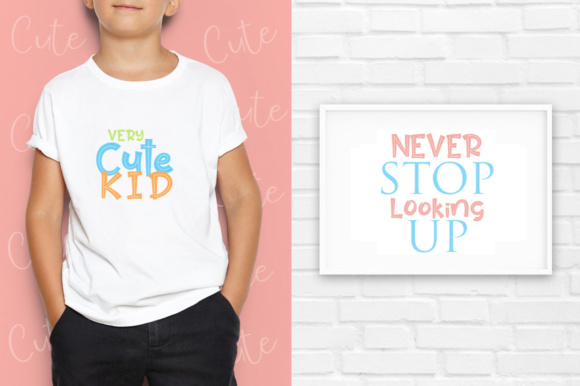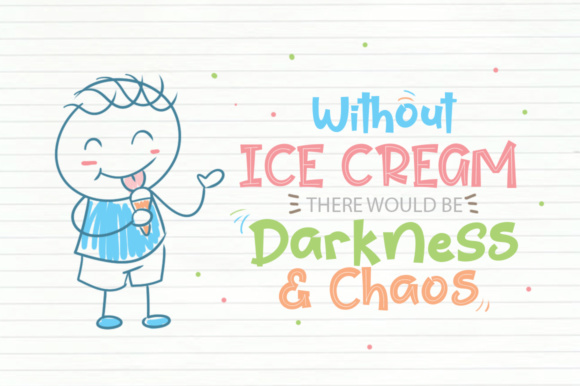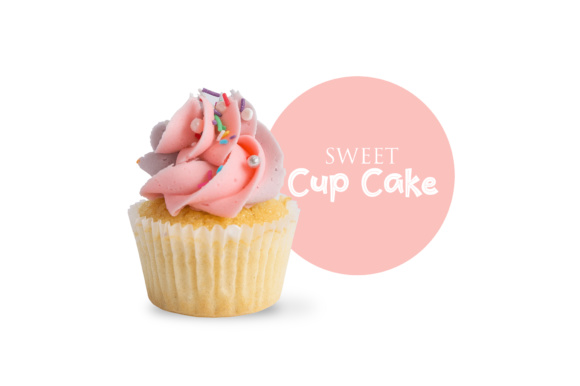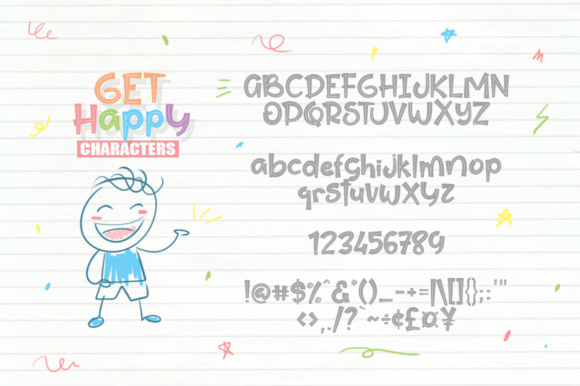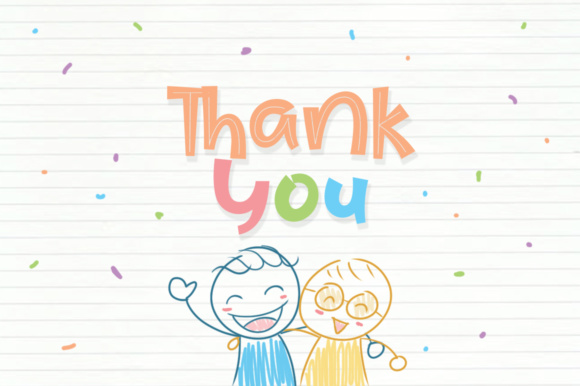
Get Happy Font: Elevate Your Designs with a Burst of Joy
Are you tired of using the same old fonts in your designs? Do you want to add a touch of personality and whimsy to your creations? Look no further than the Get Happy font, a display typeface that is sure to bring a smile to your face. With its awesome characters in 2 different styles – regular and solid – Get Happy is the perfect choice for designers and crafters looking to add some excitement to their work.
What is Get Happy Font?
Get Happy is a display typeface designed to make a statement. Its unique characters are crafted to add a playful and carefree touch to any design. The font comes in two styles: regular and solid. The regular style features outlined characters with a subtle border, while the solid style features filled characters with a bold and chunky look. This versatility makes Get Happy suitable for a wide range of design applications, from name cards and posters to logos, magazines, and large-scale artwork.
Get Happy font is a dream come true for designers and crafters who want to add some personality to their work. Whether you’re creating a logo, a poster, or a social media graphic, Get Happy is the perfect choice. The font’s playful and upbeat vibe makes it ideal for designs that require a bit of whimsy and fun. Plus, its highly legible characters ensure that your message is communicated clearly and effectively.
Use Cases for Get Happy Font
Get Happy font is incredibly versatile and can be used in a variety of design applications, including:
- Name Cards: Add a personal touch to your business cards or name tags with Get Happy font.
- Posters: Create eye-catching posters that grab attention with Get Happy’s bold and playful characters.
- Logos: Use Get Happy font to create a unique and memorable logo for your brand.
- Magazines and Covers: Add a touch of personality to your magazine covers or article headers with Get Happy font.
- Banners: Create attention-grabbing banners with Get Happy’s bold and colorful characters.
- T-Shirts: Design fun and quirky t-shirts with Get Happy font.
- Headers: Use Get Happy font to create stunning headers for your website or blog.
- Large-Scale Artwork: Get Happy font is perfect for creating large-scale artwork, such as billboards or signage.
Why Choose Get Happy Font?
So, why choose Get Happy font over other display typefaces? Here are just a few reasons:
- Unique Characters: Get Happy font features unique and playful characters that will set your designs apart from the crowd.
- Versatility: The font comes in two styles – regular and solid – making it suitable for a wide range of design applications.
- Highly Legible: Get Happy font is highly legible, ensuring that your message is communicated clearly and effectively.
In conclusion, Get Happy font is a fantastic display typeface that is sure to bring a burst of joy to your designs. With its unique characters, versatility, and high legibility, Get Happy is perfect for designers and crafters looking to add some personality to their work. Whether you’re creating a logo, poster, or social media graphic, Get Happy font is the perfect choice. So why wait? Download Get Happy font today and start creating designs that make people smile!